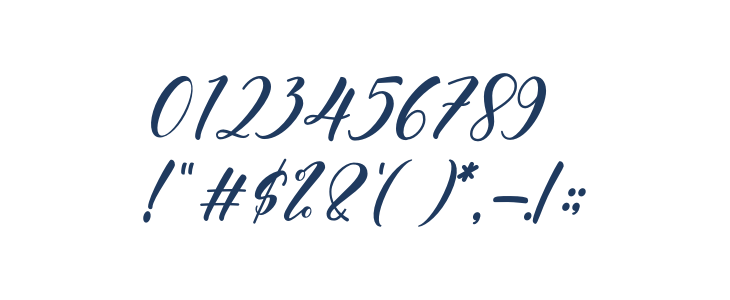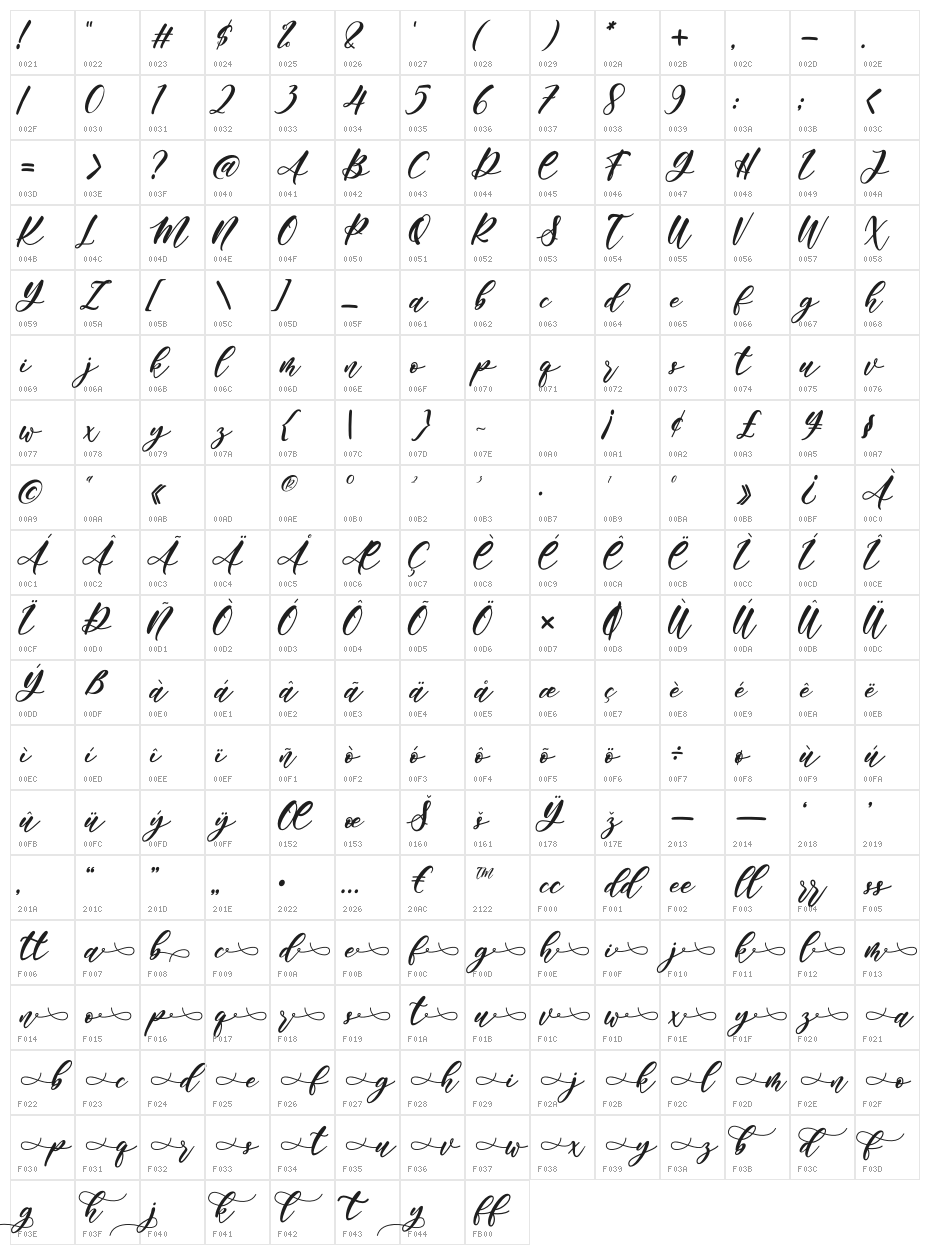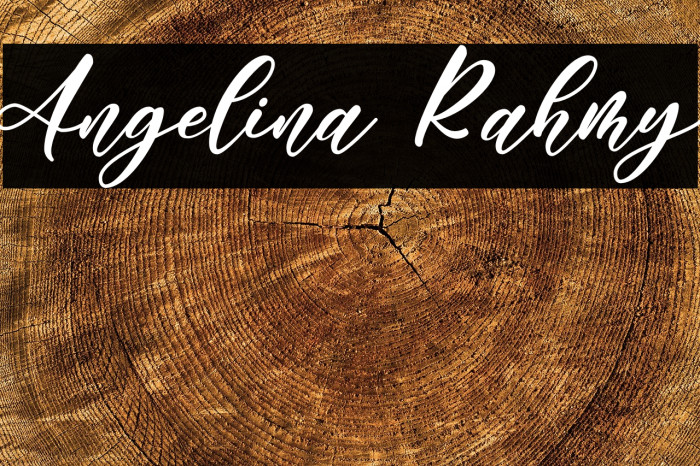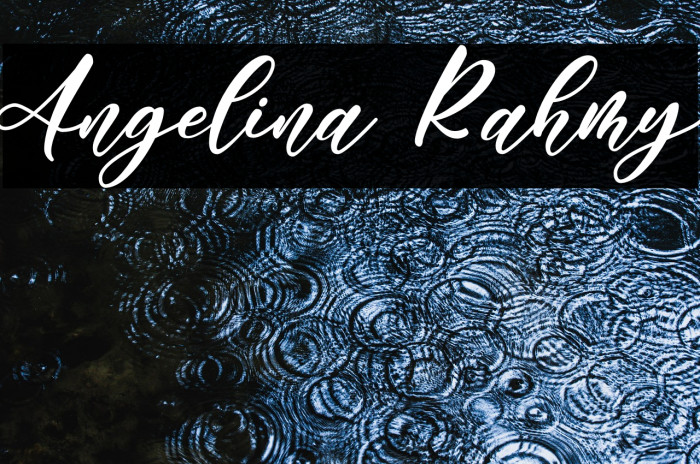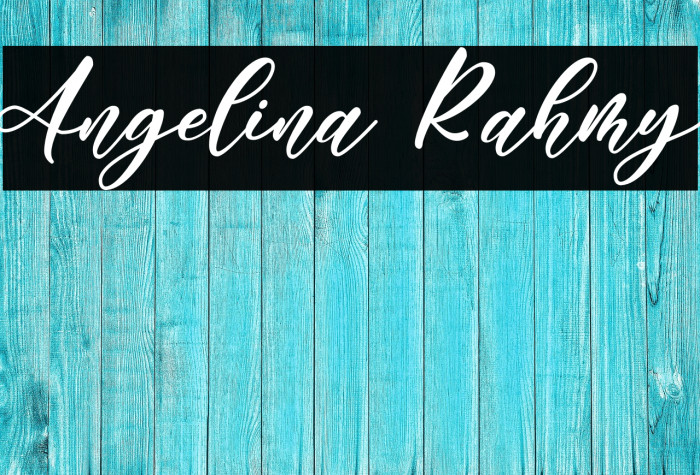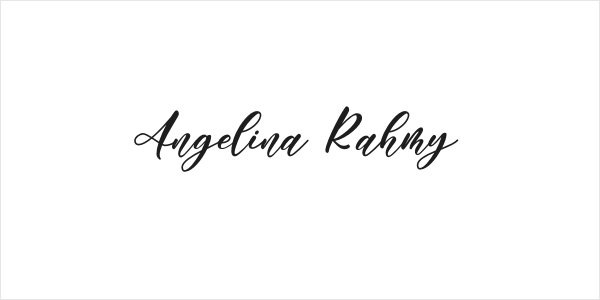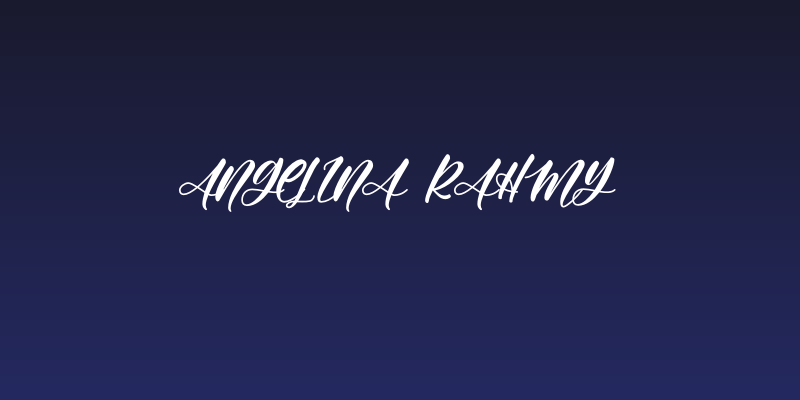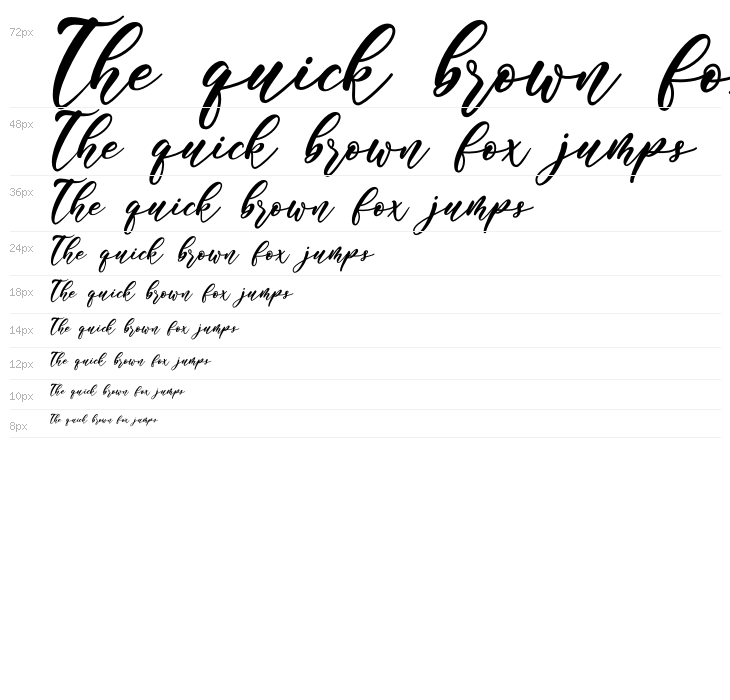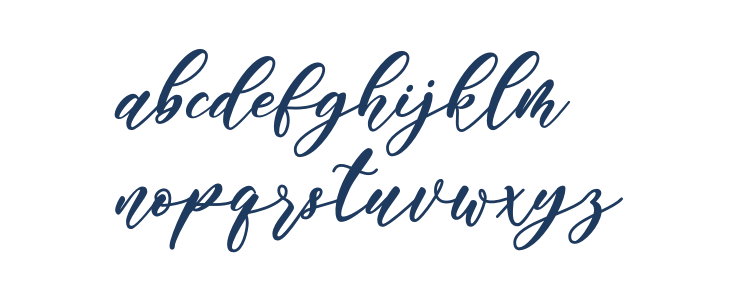
Angelina Rahmy Font
Angelina Rahmy Description
This font features a flowing, cursive style that exudes elegance and sophistication. The characters are connected in a fluid manner, reminiscent of traditional calligraphy. The uppercase letters are bold and sweeping, while the lowercase letters maintain a consistent, graceful flow. The numerals are distinct yet harmonize well with the overall script style. Special characters are thoughtfully designed to match the aesthetic, making this font versatile for various applications. The strokes are smooth and consistent, offering a polished and refined appearance.
| Proposed Projects | Ideal for wedding invitations, elegant branding, personal signatures, and artistic projects requiring a touch of sophistication. |